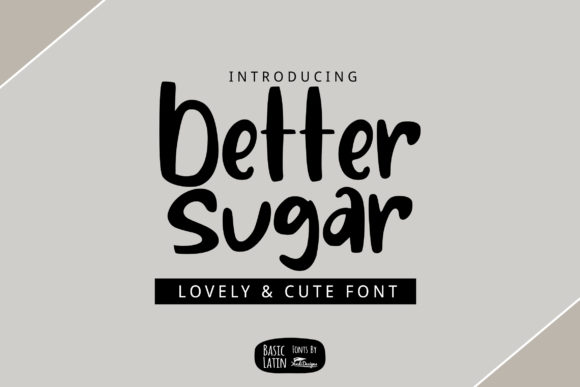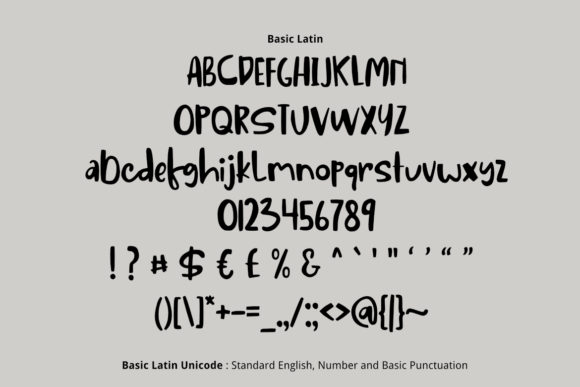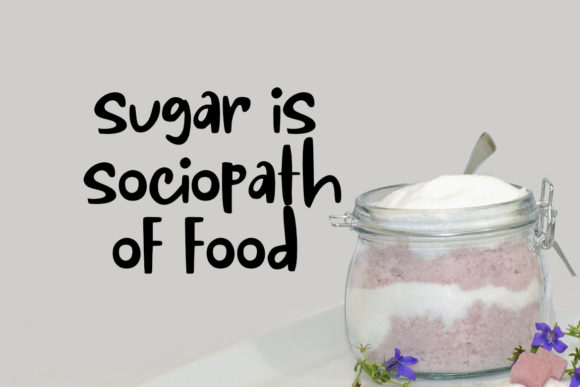
About Better Sugar Font
Better Sugar is a lovely and cute handwritten font. This font reads as strong, confident, and dynamic and can add tons of nostalgic character to your designs.